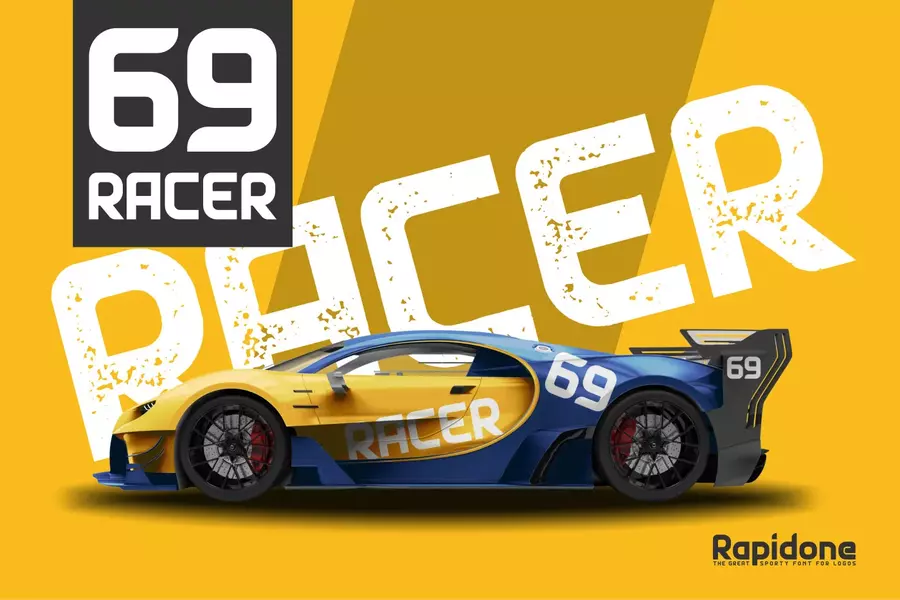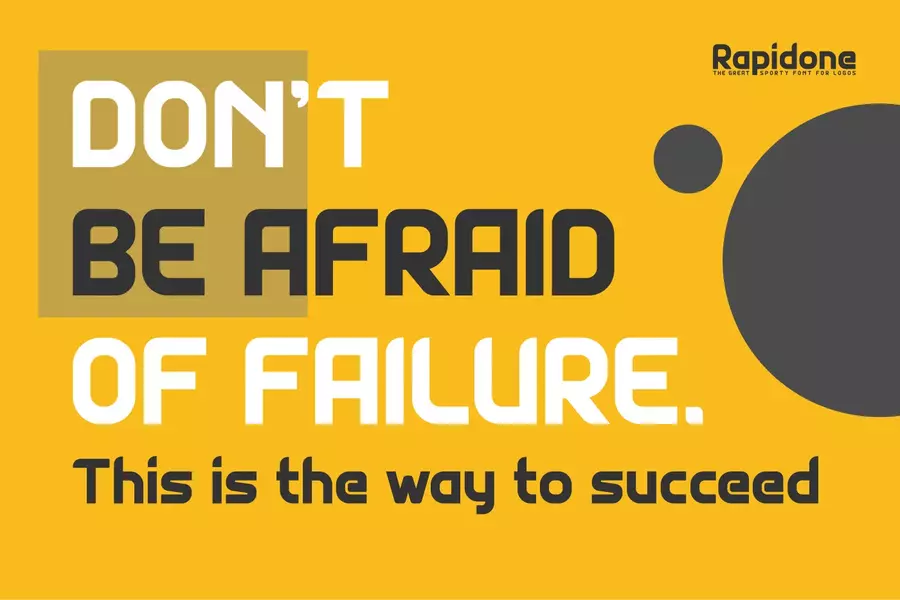
Rapidone – Sporty Font for Logos
Rapidone is a display font with a sporty style. This font is perfect for Logotype, branding and all things sports related.
This font comes with 2 types variations, namely Solid and Rough, both of which have their respective advantages.